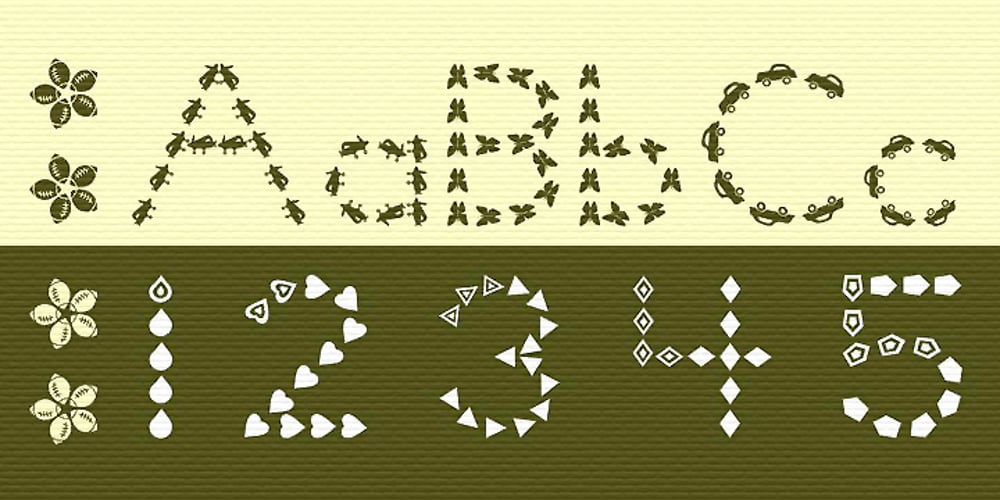
Kerp Font Family was designed by Azelea Rodgers and published by aRc. Kerp contains 1 styles and family package options. Kerp introduces the new trend in handwriting practice for kids in preK-Kindergarten. It’s fun, unique and visually stimulating that will encourage any young “alphabet tracers” to find joy while learning their ABCs. This TrueType font is great for creating personalized tracing worksheets, flashcards and even home-made greeting cards. For best results, big fonts are highly recommended to see the fine details of each character. Kerp was conceptualized in 2007 to inspire a 4 year-old boy to stop from his hectic schedule of playing. It started from hand-drawn apples forming the letter A to non-stop digital editing until 2008. The images selected are things that are associated to a preschooler’s life varying from food to school supplies.